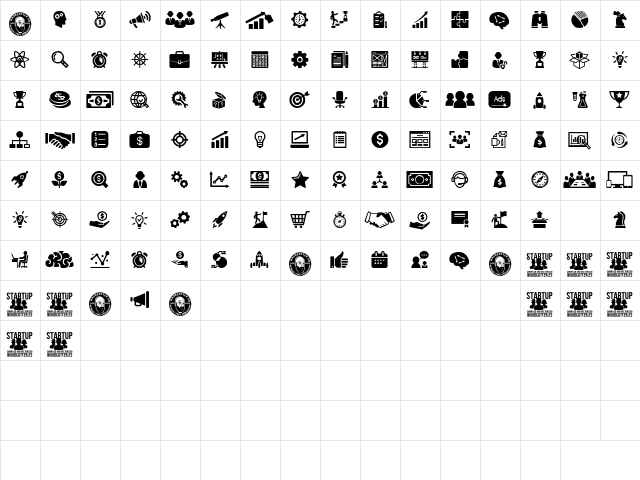
Startup Icons Regular
| Designer | Woodcutter Manero |
Design Context for Startup Icons Typeface
Startup Icons is a composed and adaptable typeface that performs quietly and consistently across a wide range of design contexts.